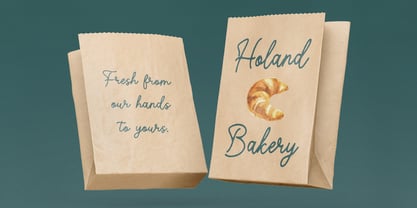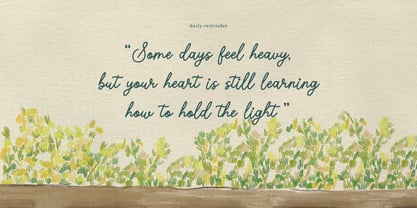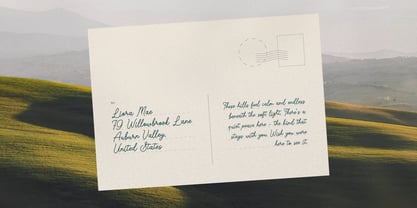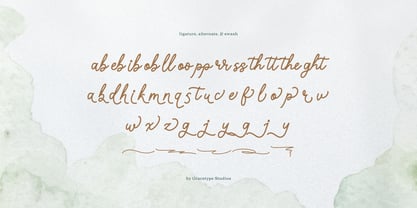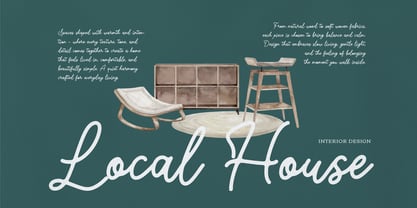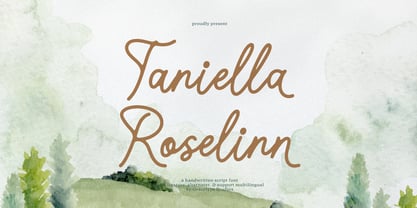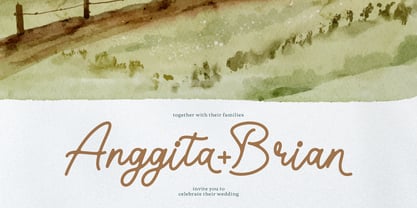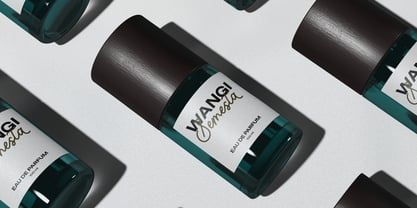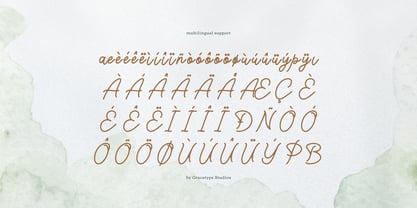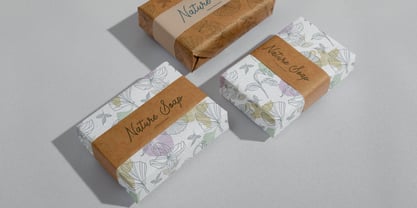
Taniella Roselinn
Taniella Roselinn | Handwritten Script, from Gracetypestudio, suitable for any projects such as: logos, branding projects, homeware designs, product packaging, mugs, quotes, posters, shopping bags, t-shirts, book covers, name card, invitation cards, greeting cards, label, photography, watermark, special events, and all your other lovely projects that need a Script taste.